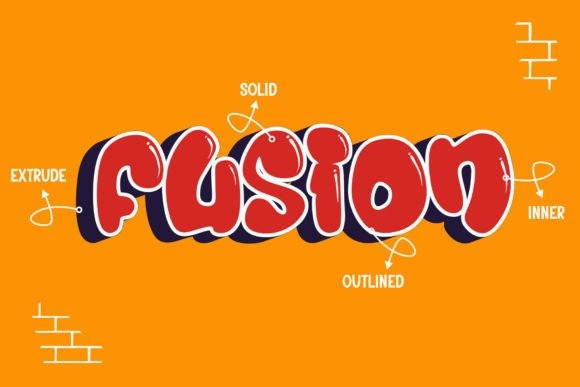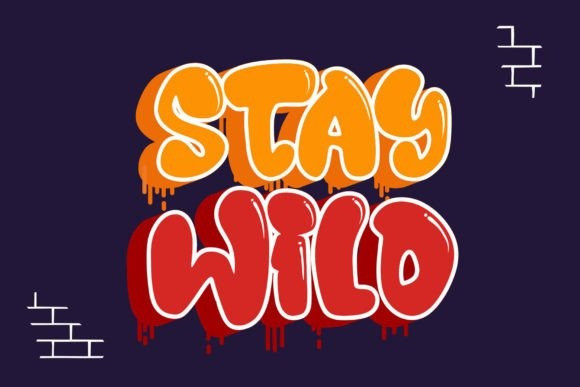
Juicy Snap Font
Juicy Snap Font a dynamic 3D display font brimming with energy. Drawing influence from graffiti aesthetics, Juicy Snap’s plump characters are playful and endearing, arresting attention with their thick, effervescent letters abundant in character. Juicy Snap extends a versatile palette of four layered typefaces including extrude, outlined, solid, and inner shadow. This eclectic mix lends you the freedom to play with depth, dimension, and a spectrum of effects.
Juicy Snap resonates perfectly with designs targeted toward children’s products, whimsical branding, vibrant social media graphics, or any project requiring a dash of creativity and fun. Imbued with the lively spirit of street style, Juicy Snap is the quintessential selection for crafting eye-catching visuals that captivate the viewer with its visually engaging and unforgettable aesthetic.